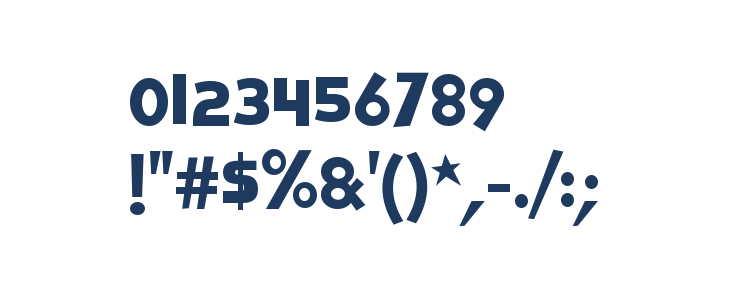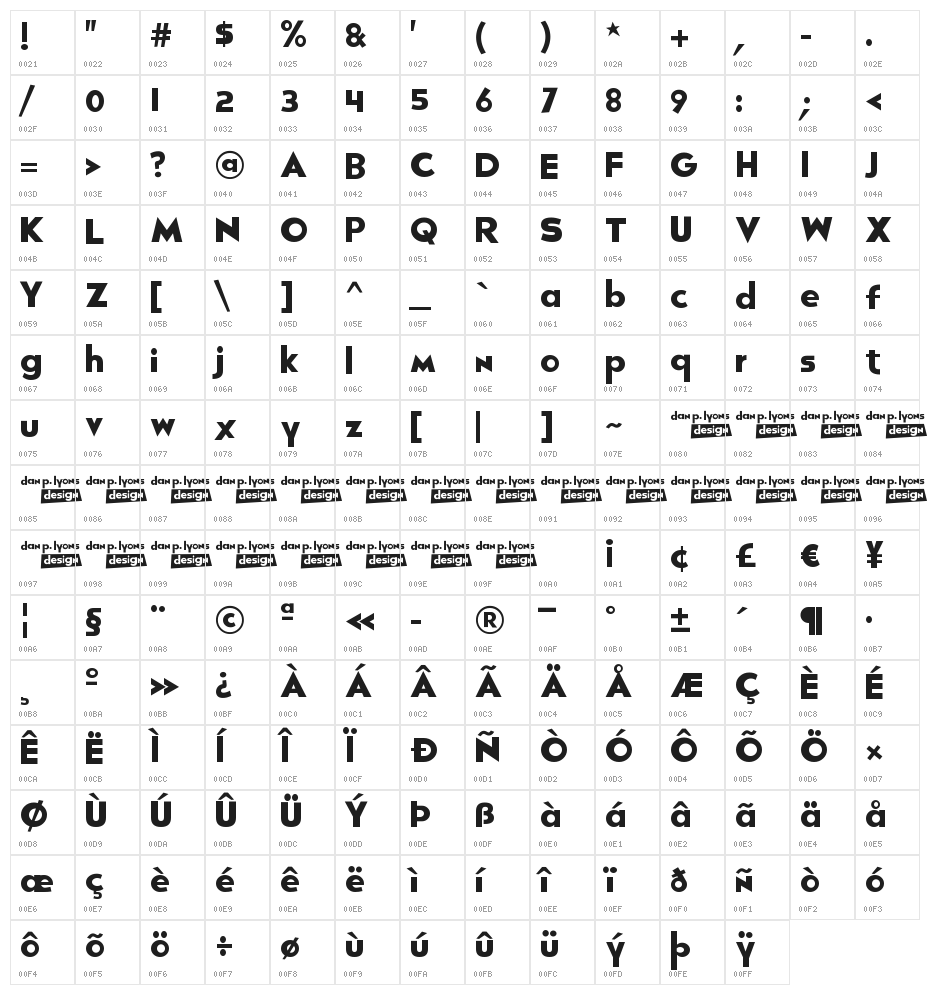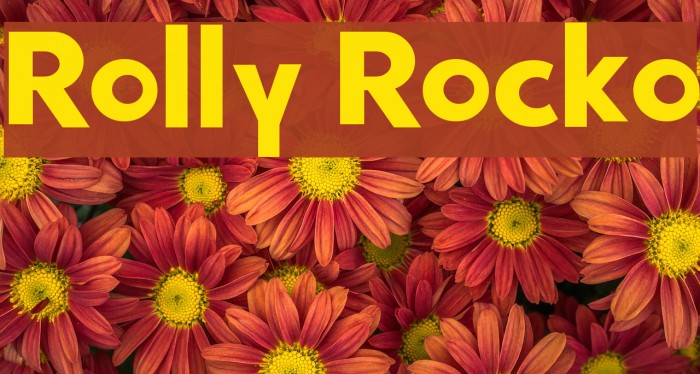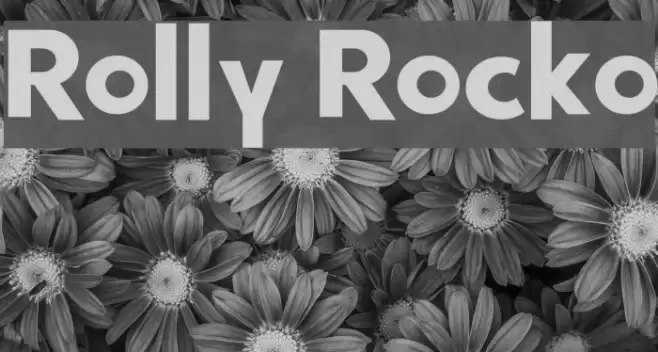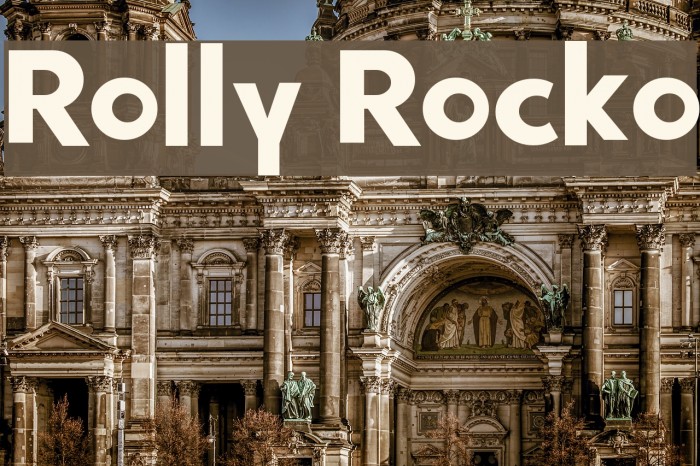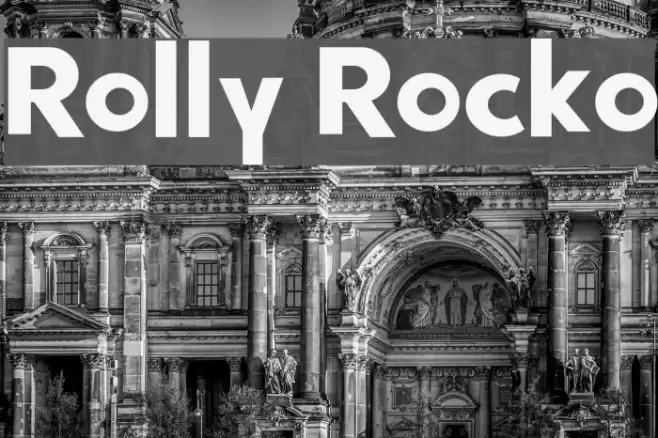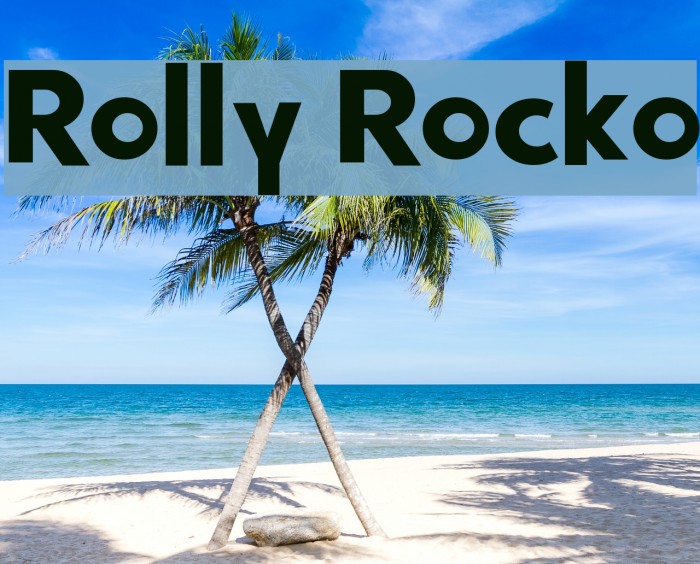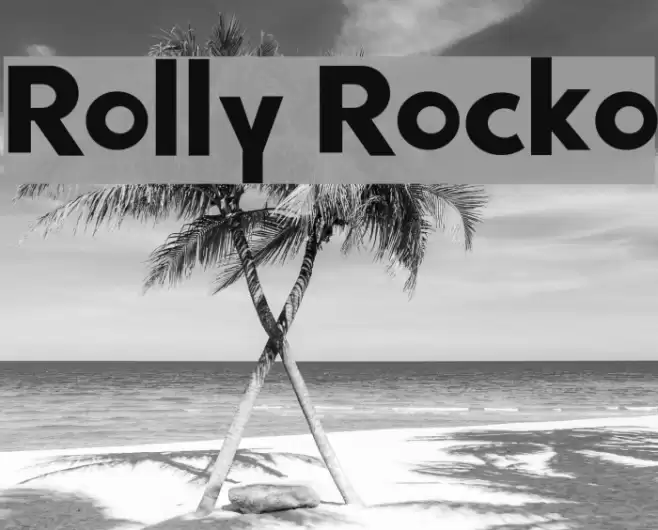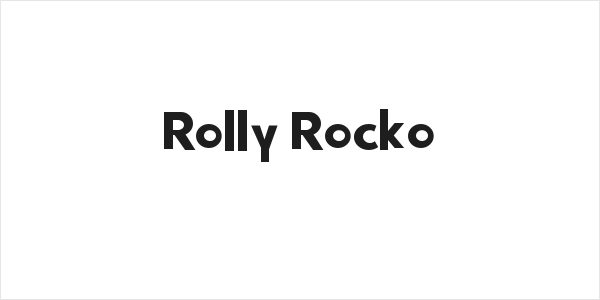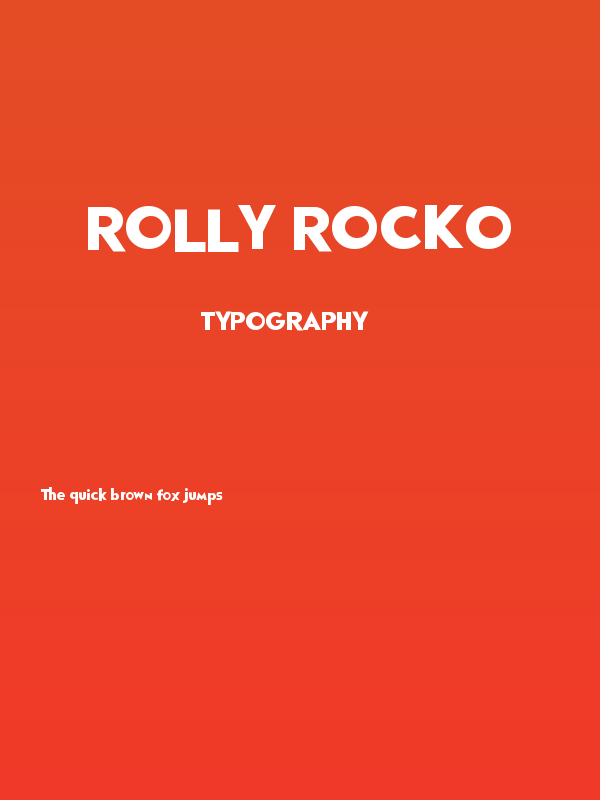
Rolly Rocko Font
Rolly Rocko Description
This font features a bold and geometric design with a strong presence. The characters are crafted with sharp angles and clean lines, giving it a modern and assertive look. The uppercase letters are particularly striking, with a consistent height and width that create a uniform appearance. The lowercase letters maintain the boldness of the uppercase, with rounded edges that add a touch of softness to the overall design. Numbers and special characters are equally bold, ensuring readability and impact. This font's style is ideal for making a statement, with its high contrast and solid structure.
| Proposed Projects | Ideal for branding, headlines, posters, and any project requiring a strong visual impact. |